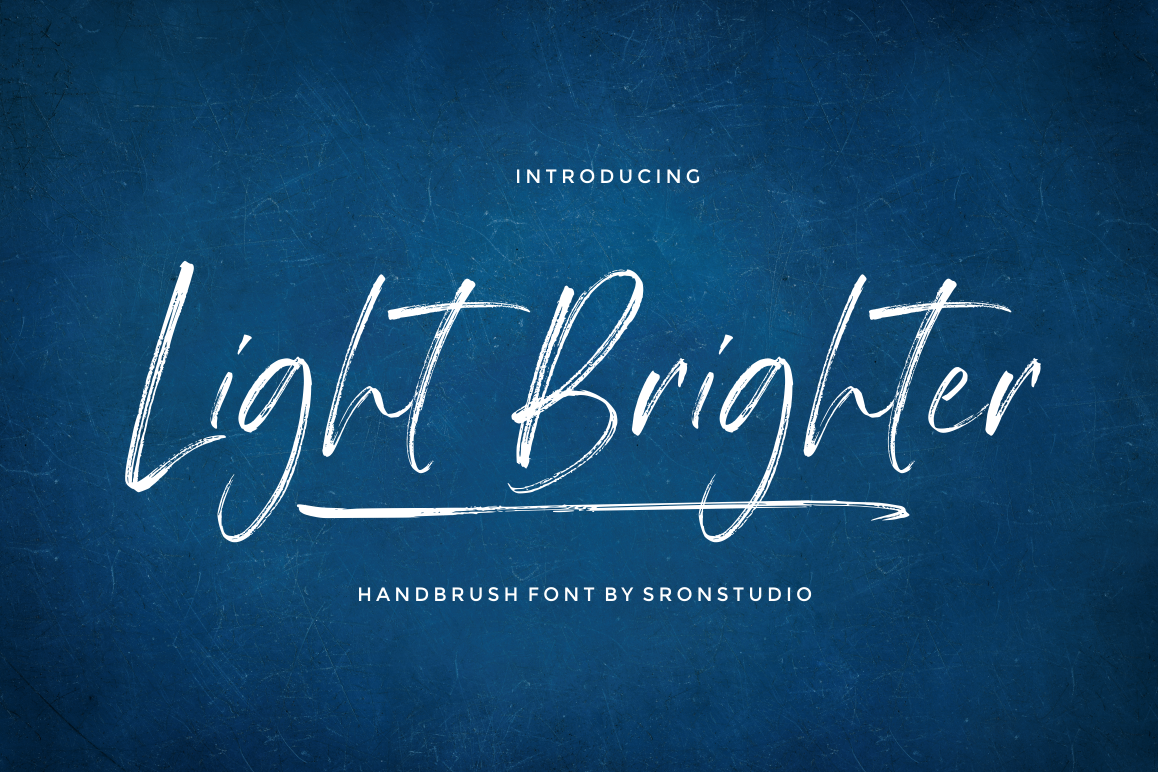
Light Brighter - Handbrush Font
Light Brighter
Introducing Light Brighter - Handbrush Font
Light Brighter is a natural handbrused font, this font Is perfect for logo, invitation, stationery, wedding designs, social media posts, advertisements, product packaging, product designs, label, photography, watermark, special events or anything.
Light Brighter comes with full set of uppercase and lowercase letters, multilingual symbols, numerals, punctuation.